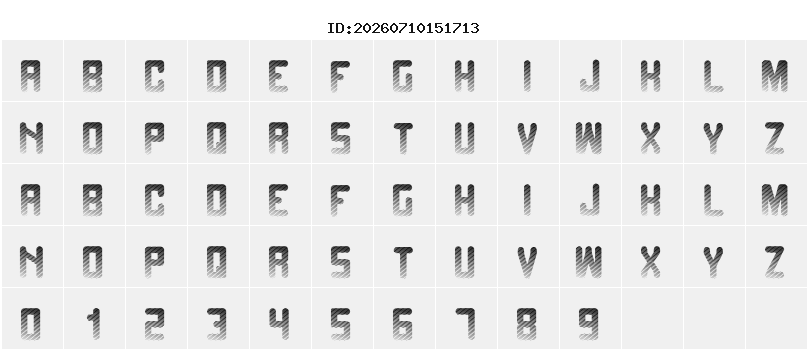
• Font Name: Fade to grey
About Fade to grey.ttf
Fade to grey.ttf is a modern, elegant sans-serif font designed for ultimate readability and visual harmony. Perfect for branding, headlines, web design, and print materials.